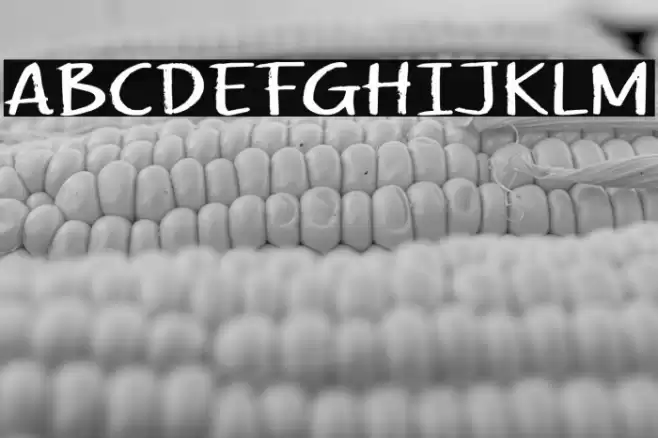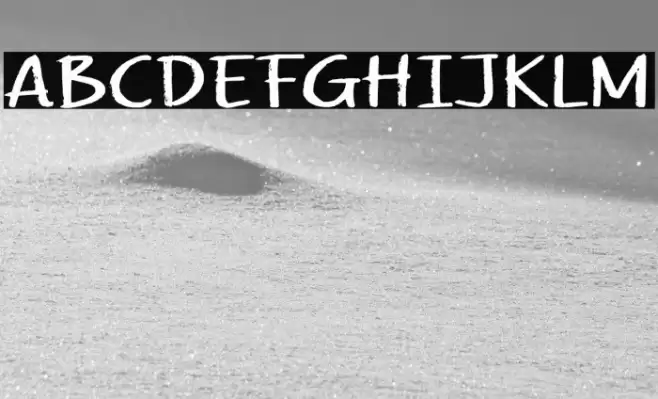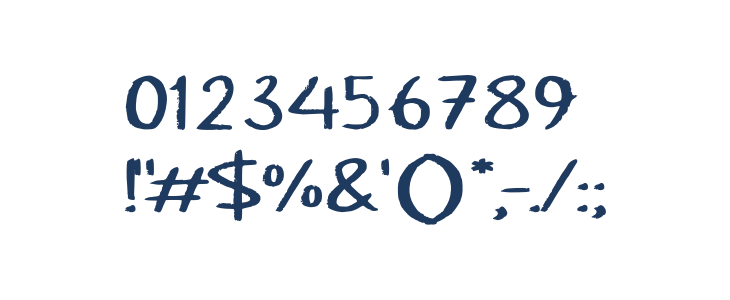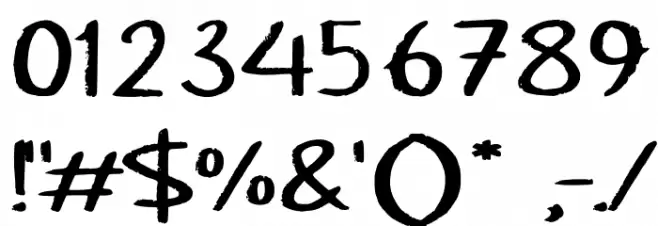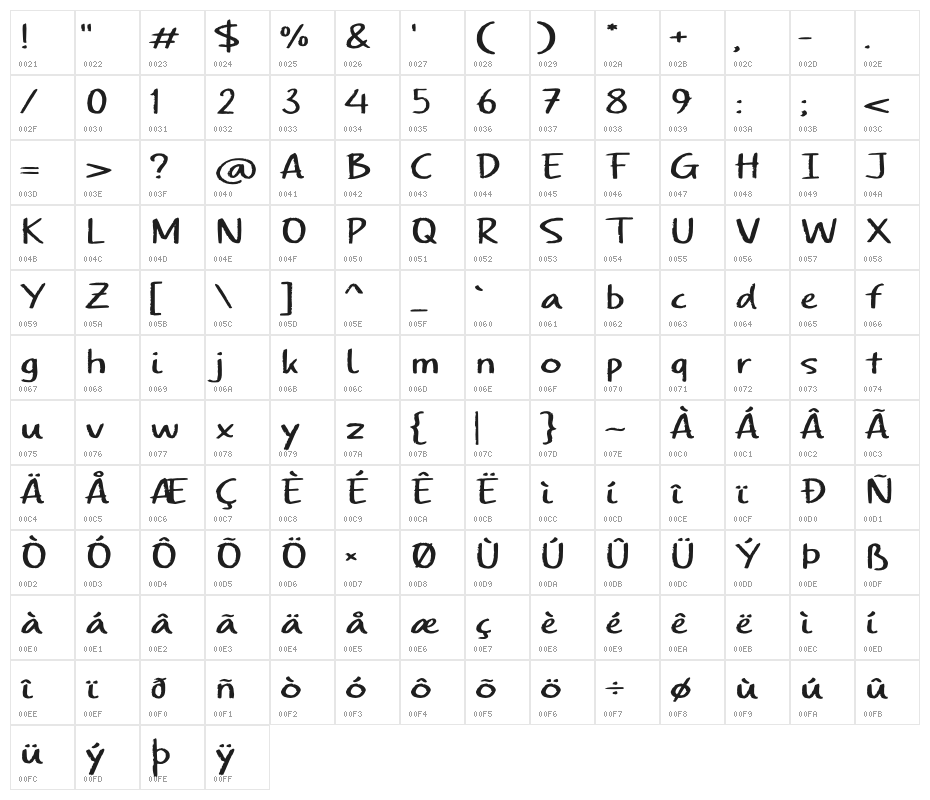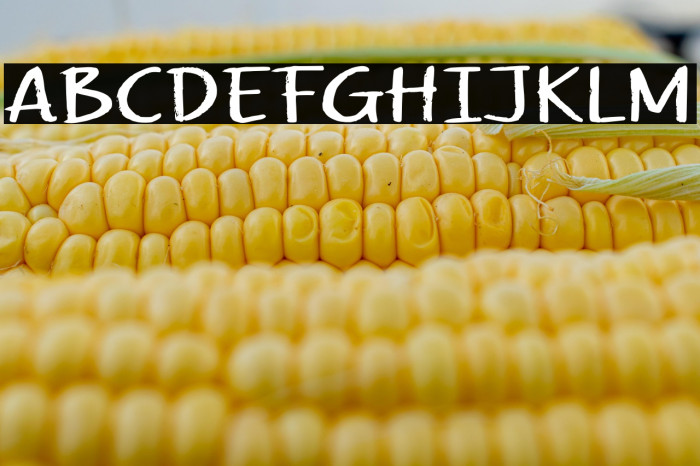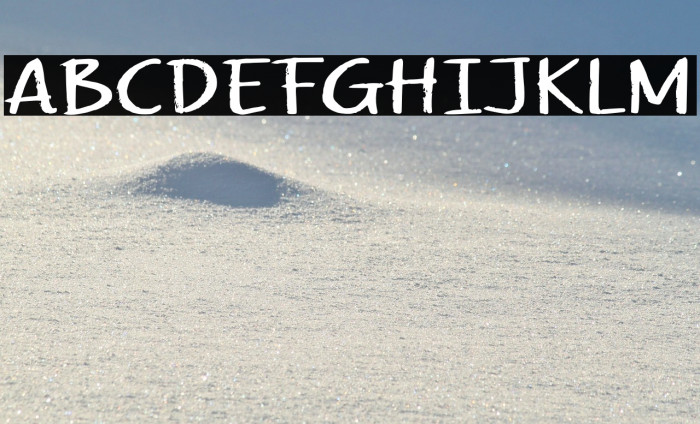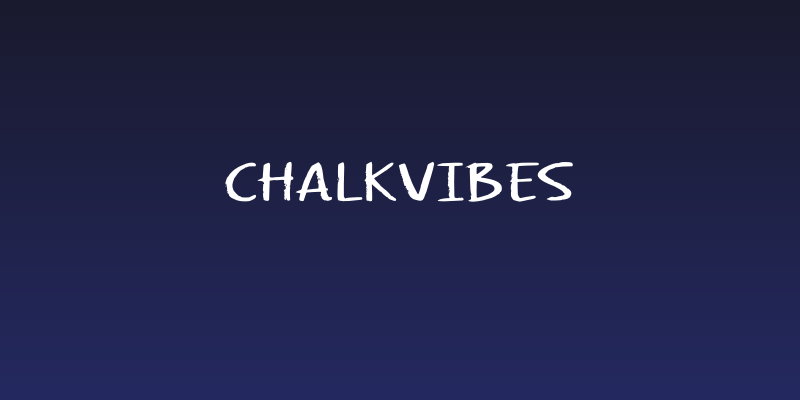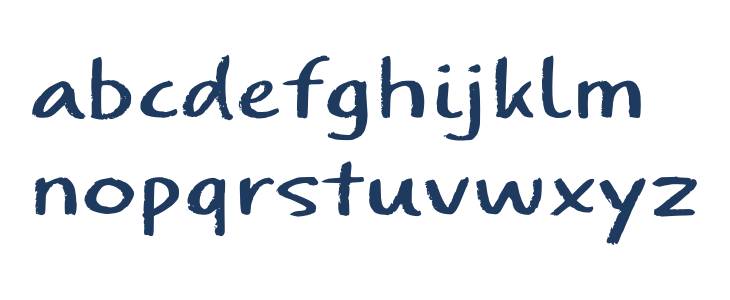
Chalkvibes Font
Chalkvibes Description
This font exudes a playful and informal vibe, reminiscent of chalk writing on a blackboard. The characters are bold and slightly irregular, giving them a hand-drawn appearance. The strokes are thick and textured, mimicking the effect of chalk dust. This style is both approachable and dynamic, making it suitable for creative and casual contexts. The uppercase and lowercase letters maintain a consistent style, while the numbers and special characters are equally expressive, adding to the font's versatility.
A playful, chalk-like font with bold, textured strokes from Uncategorized fonts.
- Font: Chalkvibes
- Proposed Projects: Ideal for educational materials, children's books, cafe menus, and creative event posters.